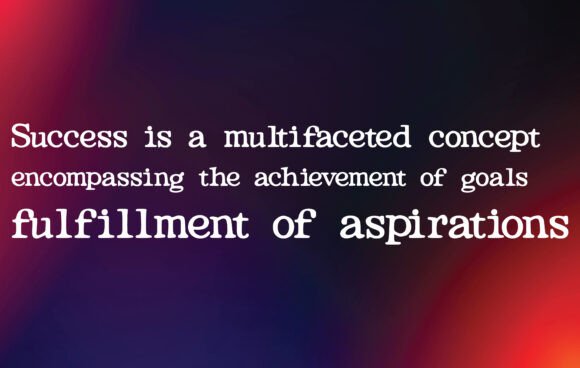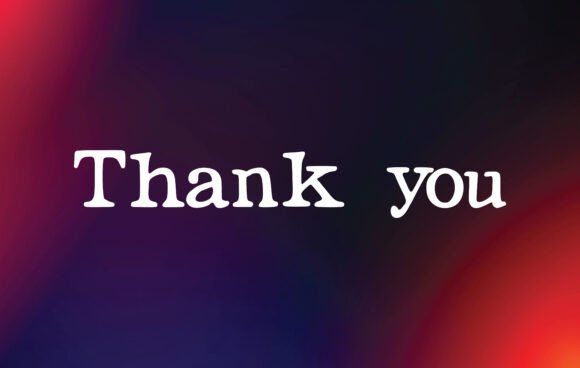
Cyclamen Font: Elevate Your Creative Projects with Style and Versatility
In the world of typography, finding the perfect font that combines style, readability, and versatility can be a daunting task. However, if you’re looking for a font that can effortlessly elevate your creative projects, look no further than the Cyclamen Font. This beautifully crafted font is designed to become a staple in your collection, offering the ideal blend of aesthetics and functionality.
A Perfect Blend of Style and Versatility
Cyclamen Font is meticulously designed to cater to a wide range of creative needs. Its unique charm and character make it an excellent choice for various design projects, from magazine headlines and t-shirt designs to social media posts, branding materials, wedding invitations, and greeting cards. The font’s versatility lies in its ability to adapt seamlessly to different design contexts, ensuring that your work always stands out.
Easy to Read and Visually Appealing
One of the standout features of Cyclamen Font is its exceptional readability. The font is carefully crafted to ensure that it remains clear and legible, even at smaller sizes, making it perfect for body text. At the same time, its stylish and elegant design makes it an excellent choice for titles and headings. This dual capability makes Cyclamen Font an incredibly practical addition to your typography arsenal.
Ideal for Various Design Projects
Cyclamen Font’s adaptability and aesthetic appeal make it suitable for a multitude of design applications. Here are some of the ways you can use this versatile font:
- Magazine Headlines: Create eye-catching titles that draw readers in with Cyclamen Font’s unique and stylish design.
- T-Shirt Designs: Add a touch of elegance and sophistication to your apparel designs with this versatile font.
- Social Media Posts: Stand out on social media platforms with Cyclamen Font’s distinctive and engaging style.
- Branding Materials: Establish a strong brand identity with a font that exudes professionalism and creativity.
- Wedding Invitations: Add a touch of romance and whimsy to your wedding invitations and stationery.
- Greeting Cards: Create beautiful and heartfelt greeting cards for any occasion.
Why Choose Cyclamen Font?
With so many fonts available, why should Cyclamen Font be your go-to choice? Here are a few compelling reasons:
- Unique Design: Cyclamen Font boasts a distinctive design that sets it apart from more generic fonts.
- High Readability: Its clear and legible design ensures that your text is easy to read, making it perfect for both titles and body text.
- Versatility: Whether you’re working on a digital project or a print design, Cyclamen Font adapts seamlessly.
- Elegance: The font’s elegant design adds a touch of sophistication to any project.
Tips for Using Cyclamen Font
To get the most out of Cyclamen Font, consider the following tips:
- Experiment with Sizes: Cyclamen Font remains legible at various sizes, so don’t be afraid to experiment with different sizes to find the perfect fit for your project.
- Pair with Other Fonts: Try pairing Cyclamen Font with complementary fonts to create visually appealing contrast.
- Adjust Letter Spacing: Adjusting the letter spacing can help you customize the font to suit your design needs.
Cyclamen Font is a versatile and stylish addition to any designer’s toolkit. Its unique design, high readability, and adaptability make it an excellent choice for a wide range of creative projects. Whether you’re designing for digital or print, this font is sure to elevate your work and help you achieve your design goals. Make Cyclamen Font your go-to favorite and discover the perfect blend of style and versatility.